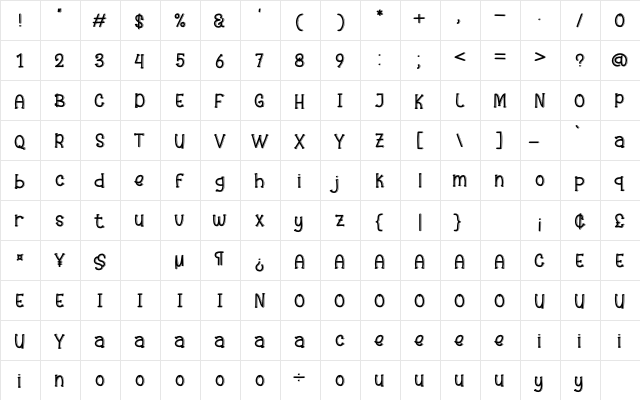
Chicks Regular
Design Context for Chicks Typeface
Chicks takes a measured approach to typography — its balanced proportions and neutral character make it a reliable workhorse for both digital and print work.
Pro Tip: Use Chicks in both headline and body roles to test its range before committing to a single application.